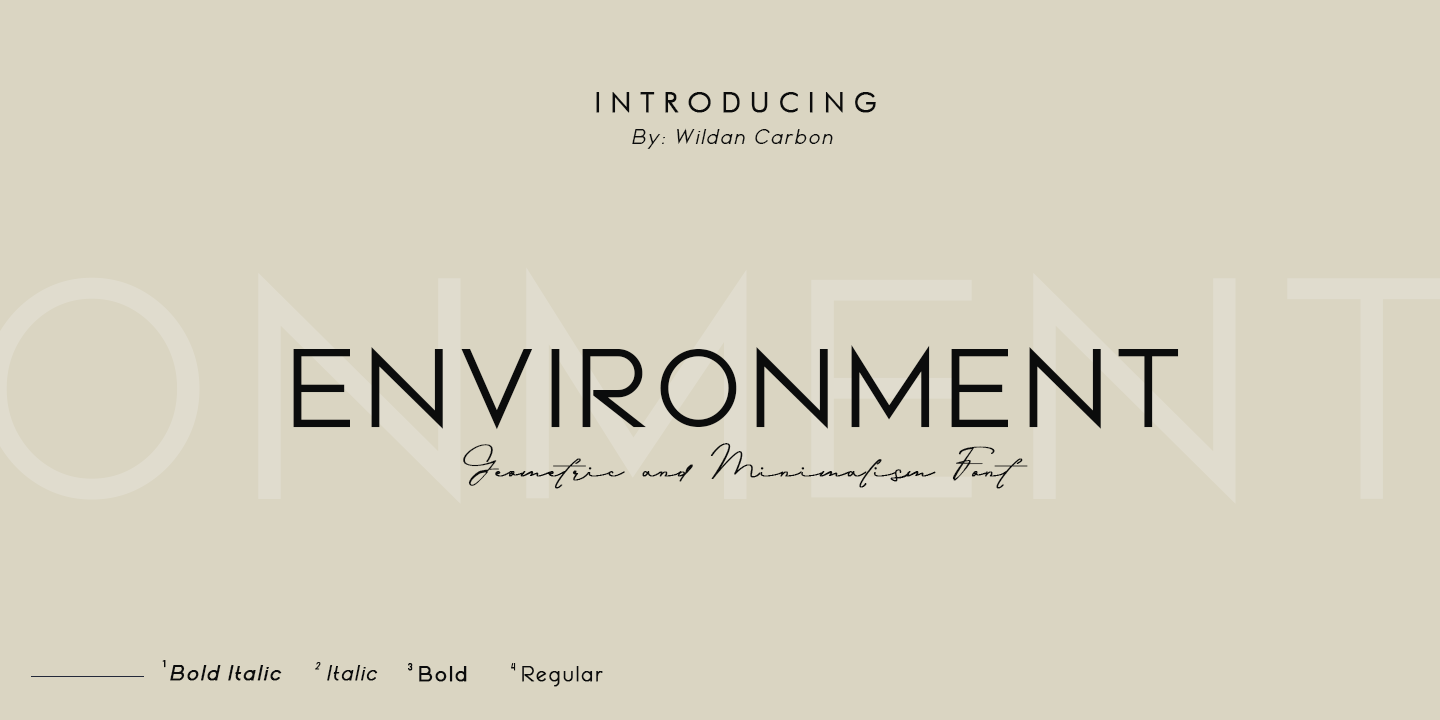
Environment Font is perfect for eco-conscious design applications including environmental organization branding, sustainable business identity, green technology marketing, renewable energy campaigns, organic product packaging, conservation awareness materials, eco-friendly lifestyle branding, and nature-inspired advertising projects that require typography with environmental character and ecological consciousness.
What makes Environment Font exciting is its powerful ability to embody environmental stewardship and ecological responsibility through naturally inspired letterforms that reflect the harmony and balance of sustainable living. This conscious typeface features organic characteristics with earth-friendly details and natural proportions that instantly communicate sustainability, environmental awareness, and ecological commitment. The font's eco-conscious personality and green appeal make it perfect for brands seeking to establish credible environmental leadership and communicate values of sustainability, conservation, and environmental responsibility to conscious consumers.
Environment Font family encompasses multiple weights and sustainable variations designed for comprehensive environmental communication. The family typically includes light, regular, medium, bold, and eco weights, complemented by organic alternates, natural ligatures, and extensive character sets with environmental symbols that enhance its ecological aesthetic and provide maximum sustainability impact.
Environmental designers consistently select Environment Font Free Download for projects requiring typography that embodies ecological consciousness and sustainable values. This responsible typeface delivers exceptional environmental appeal across green applications, from digital sustainability platforms to physical eco-friendly packaging, ensuring consistent brand messaging with unmistakable environmental authority and ecological credibility. The font's naturally crafted letterforms maintain excellent readability while delivering the authentic presence that environmental brands demand. Sustainability-focused agencies worldwide rely on this eco-conscious typeface to communicate brand values of environmental stewardship, conservation, and ecological excellence. Champion environmental responsibility with Environment Font and create compelling visual communications that resonate with audiences who appreciate sustainable living, environmental consciousness, and the vital importance of protecting our planet for future generations.